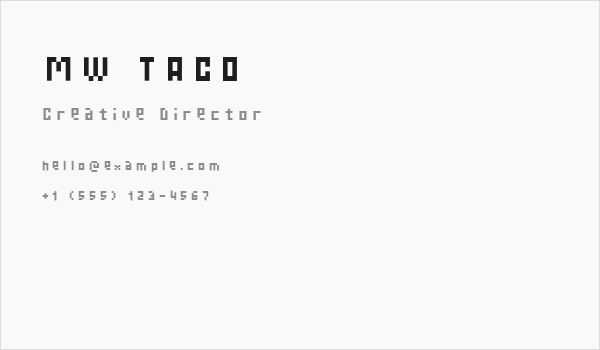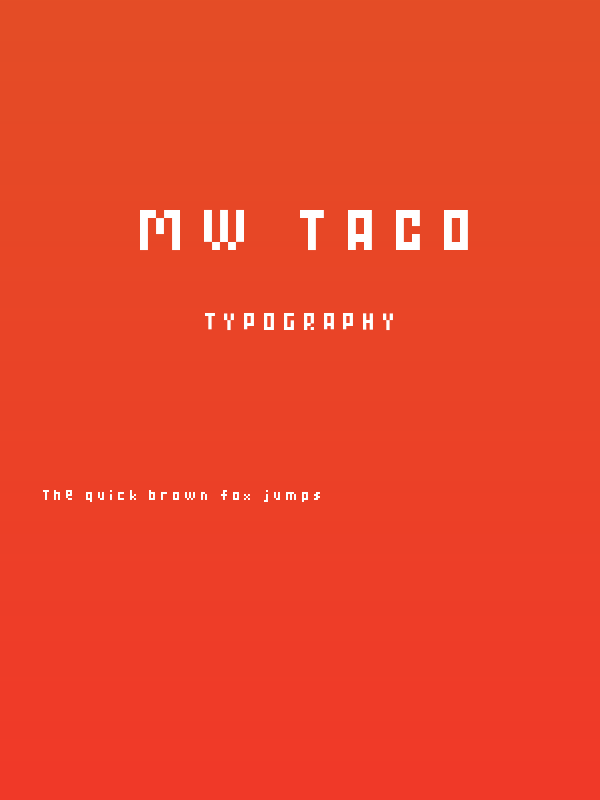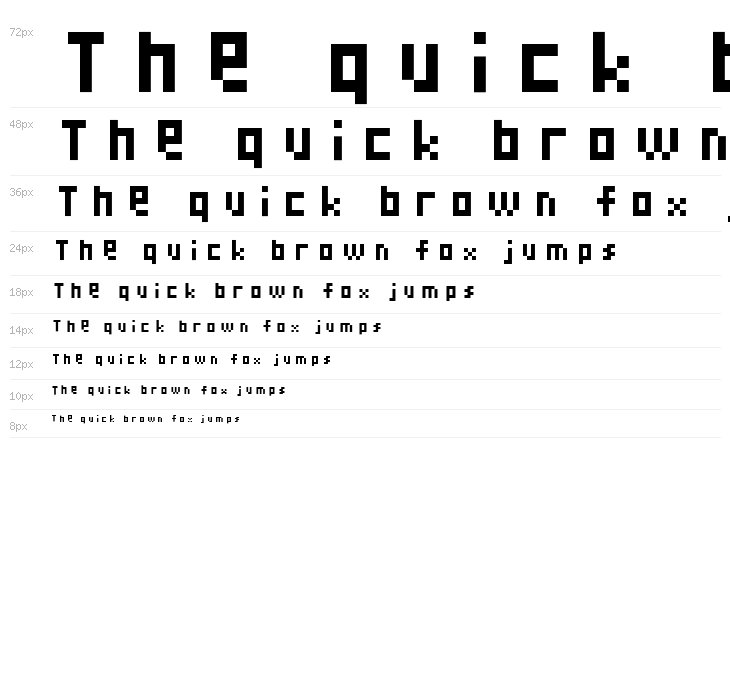
MW TACO Font
MW TACO Description
This font features a bold, geometric design with a pixelated, block-like appearance. Each character is constructed with sharp, angular edges, giving it a distinctly digital and retro aesthetic reminiscent of early computer graphics or video game typography. The uniformity in height and width across characters contributes to a monospaced feel, although it is not strictly monospaced. The uppercase and lowercase letters maintain a consistent style, with the lowercase being slightly smaller but equally bold. Numbers and special characters follow the same design principles, ensuring visual cohesion throughout. This font's simplicity and clarity make it highly legible, even at smaller sizes, while its unique style adds a playful, nostalgic touch to any project.
| Overall Style | Retro, Digital |
| Proposed Projects | Ideal for video game design, retro-themed posters, digital art projects, and any creative work that requires a vintage computer or arcade game vibe. |